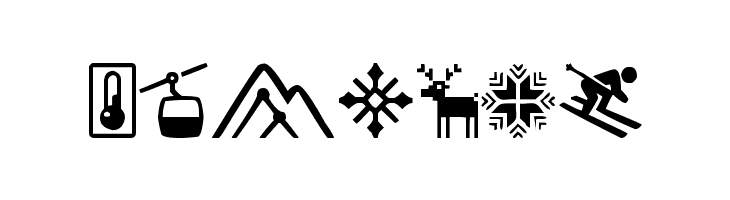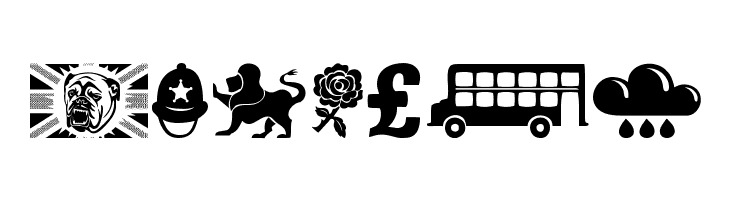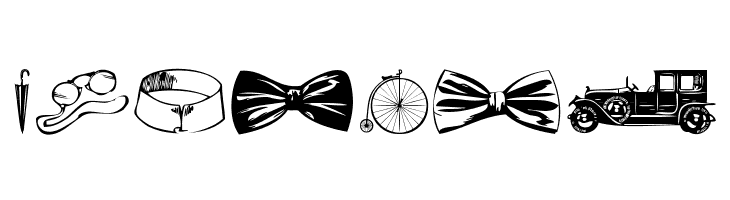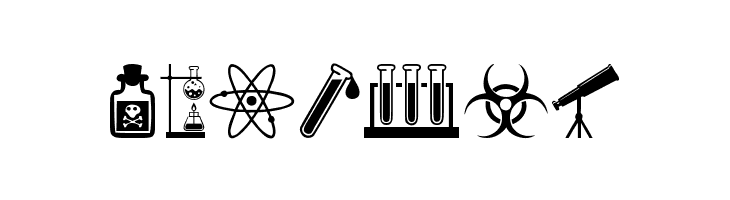
A playful, decorative icon set themed around coffee and café culture.
A dingbat font of assorted lock and padlock icons in various styles.
Bold winter icon set with solid black silhouettes.
A dingbat font of assorted video game icons and controllers.
Icon-based font with bold home appliance silhouettes.
A bold pictogram font of library and book-themed icons.
A bold collection of iconic English symbols and landmarks in silhouette form.
A pictographic icon set themed around cleaning and housekeeping.
Vintage gentleman-themed icon set with bold, high-contrast silhouettes.
Bold, iconographic science pictograms with strong silhouettes.